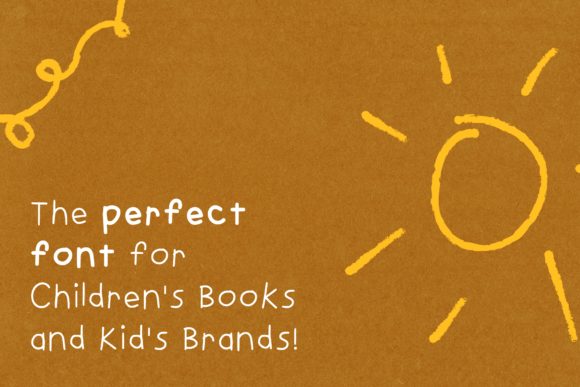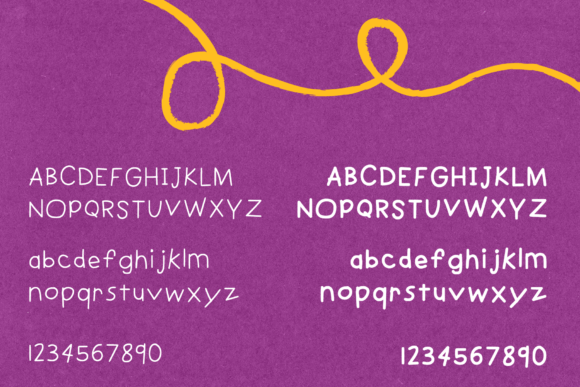
Introduction to Happy Crayon Font
Do you remember the feeling of holding a crayon in your small hands, watching the vibrant colors dance across the page as you brought your imagination to life? For many of us, those carefree moments of creativity remain etched in our memories, a reminder of the joy that art and design can bring.
As designers, we often strive to capture that same sense of wonder and playfulness in our work. That’s why we’re excited to introduce you to the Happy Crayon Font – a delightful, high-quality design resource that’s sure to add a burst of fun to any project.
Whether you’re working on a creative project for kids, designing educational materials, or crafting a whimsical children’s book, the Happy Crayon Font is the perfect addition to your design toolkit. With its transparent background and free download availability, this versatile font is a valuable resource for designers looking to add a touch of magic to their work.
Key Features of Happy Crayon Font
- Unique Hand-Drawn Design: The Happy Crayon Font features a distinctive hand-drawn design that adds a playful touch to any creative project.
- Perfect for Children’s Projects: The Happy Crayon Font is ideal for children’s book illustrations, educational materials, and other projects that require a playful and engaging design.
Honest Review: Happy Crayon Font
As a designer, I’m always on the lookout for high-quality design resources that can elevate my creative projects. I recently stumbled upon the Happy Crayon Font, and I’m excited to share my honest review with you.
- Unique and playful style that adds a touch of whimsy to any design
- High-quality graphics that render well on both digital and print materials
- Transparent background allows for seamless integration into various design projects
- May not be suitable for corporate or professional designs that require a more serious tone
- Limited character set may require additional font pairing for more complex text
Overall, the Happy Crayon Font is a great addition to any designer’s toolkit. Its playful style and high-quality graphics make it perfect for creative projects, while its free download option makes it accessible to designers of all levels. Just be mindful of its limitations and consider pairing it with other fonts for more complex designs.